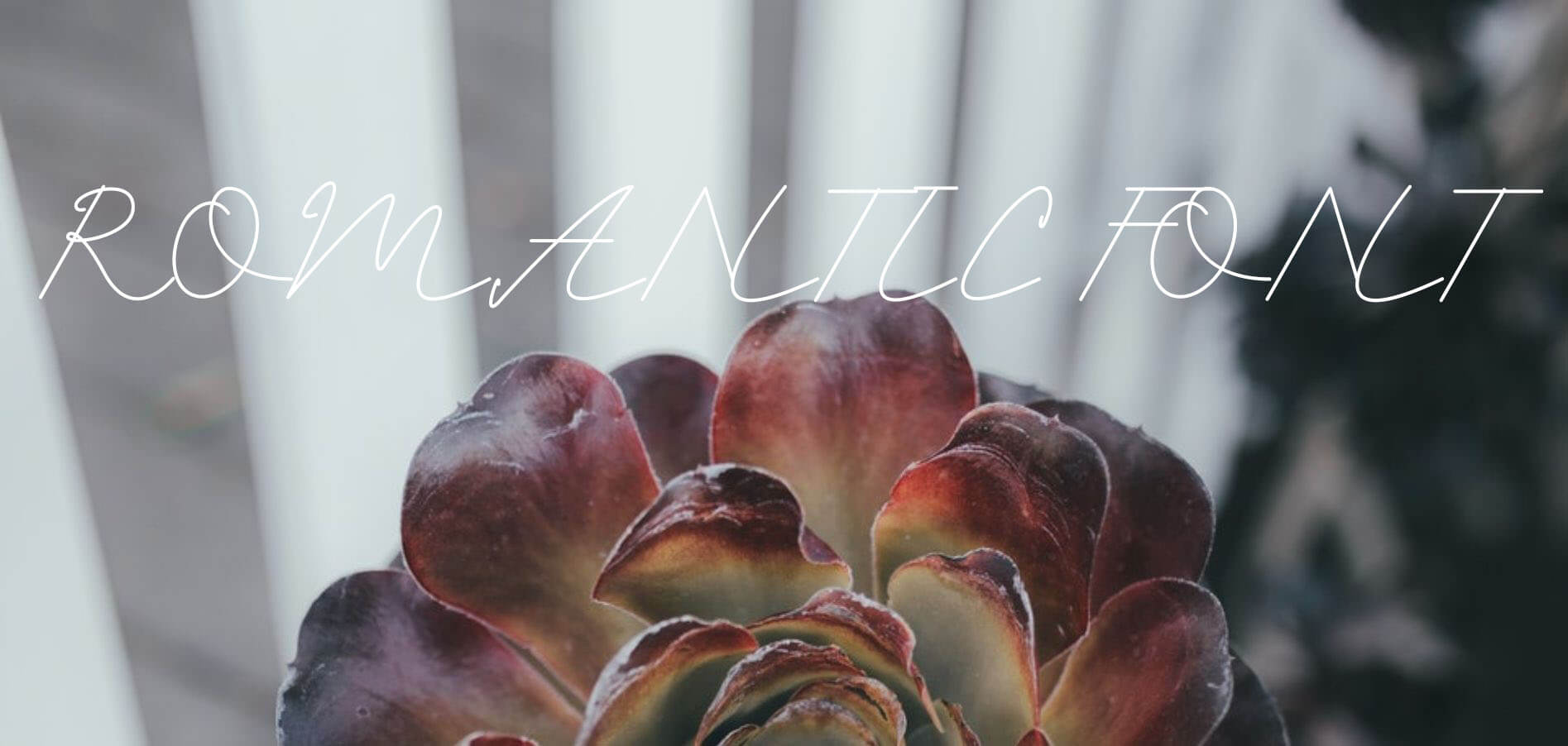
Romantic Font Family is an ultra-modern handwritten typeface. The designer of this hand-lettered font is graphic designer Aldi Raya Pradipta. This typeface brings a lovely and romantic touch to all your designs.
This font contains 4 weights including Regular, Winter Regular, Bold, and Italic. It has more than 201 unique glyphs and stylish different characters including uppercase, lowercase, and numbers.